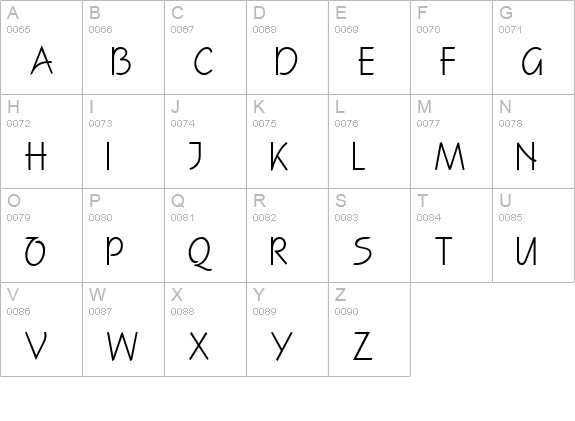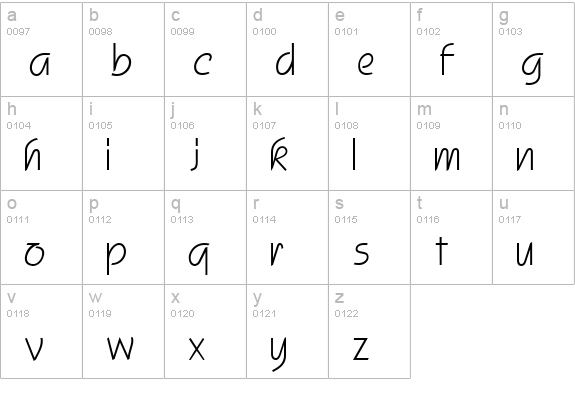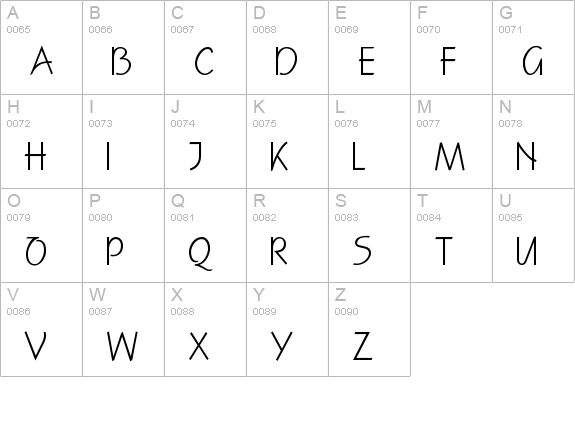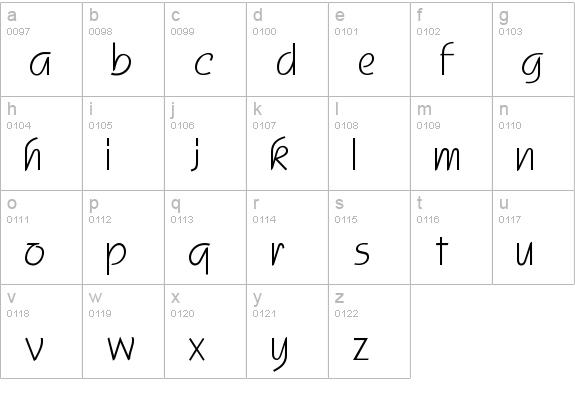
Scroll Normal Font Details
Scroll Normal is the standard, neutral variant in the Scroll typeface family \xE2\x80\x94 well suited to general body text, paragraphs, and standard typographic work.
Scroll Normal is a stunning and elegant font that exudes sophistication and grace. Its beautiful curves and delicate details make it perfect for creating eye-catching designs and adding a touch of refinement to any project. With its timeless appearance, Scroll Normal is versatile and suitable for a wide range of applications, including wedding invitations, logos, branding, and more. Whether you're designing a romantic love letter or a luxurious advertisement, this font will elevate your creations to new heights. One of the best things about Scroll Normal is that it is available for free download at FontsMarket.com. This means that you can easily access this exceptional font without any cost. It offers an incredible opportunity for designers, students, and anyone in need of a high-quality font to enhance their work. Downloading Scroll Normal is simple and hassle-free. Just visit FontsMarket.com, search for Scroll Normal, and download it with a single click. Once you have this font in your collection, you'll be able to explore its endless possibilities and unleash your creativity like never before. Don't miss out on this amazing opportunity to add Scroll Normal to your font library. Download it for free at FontsMarket.com and start creating stunning designs that captivate and inspire.